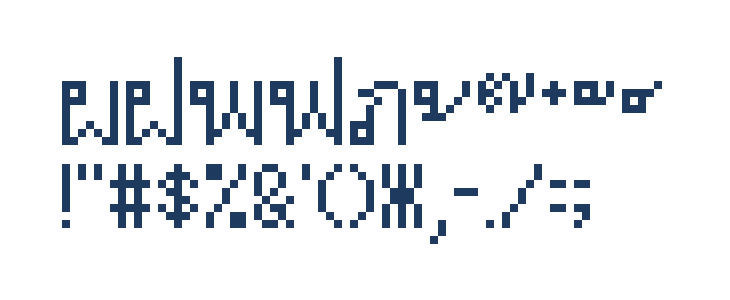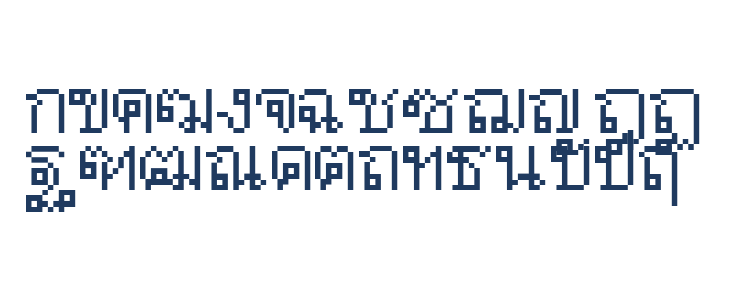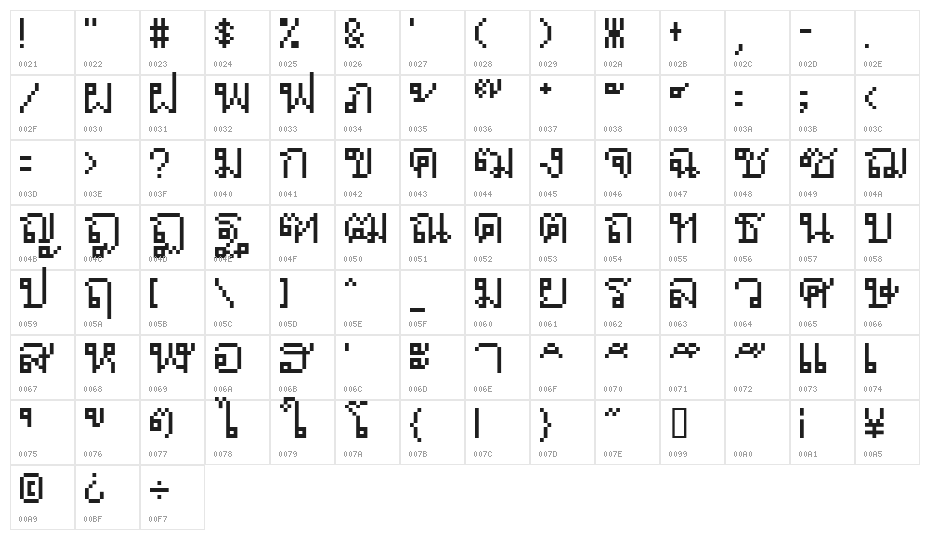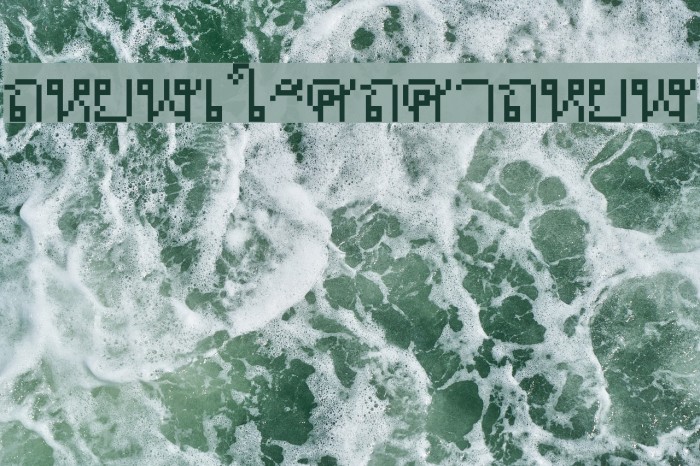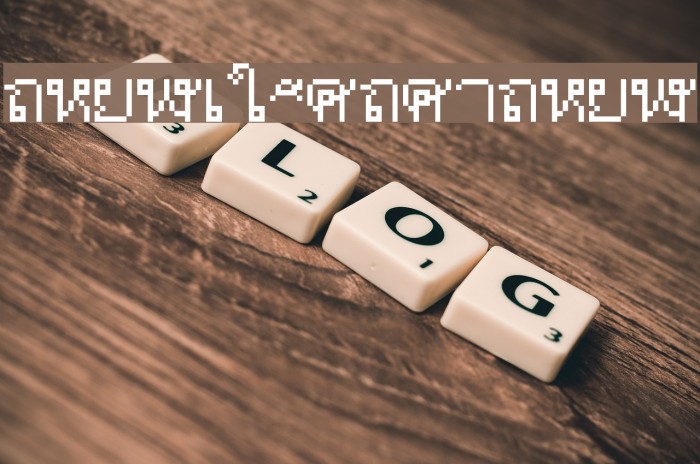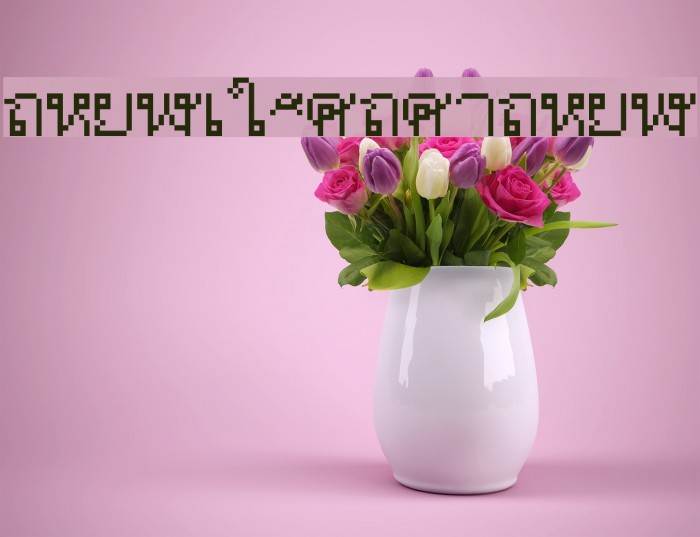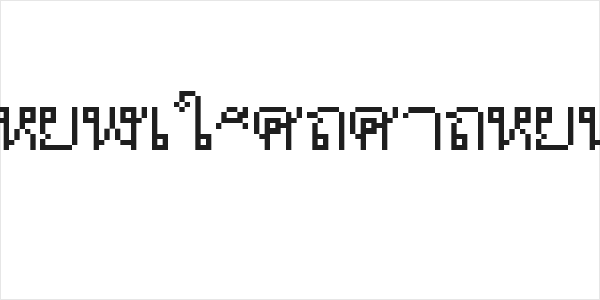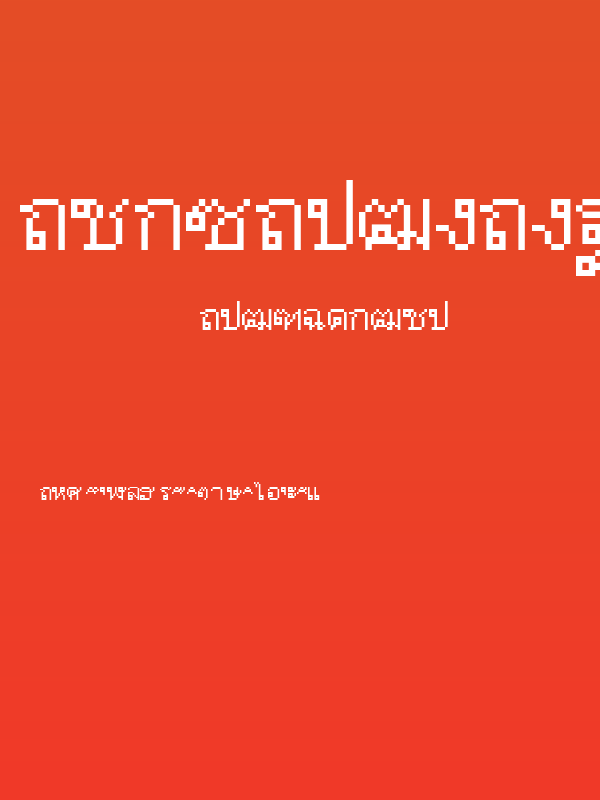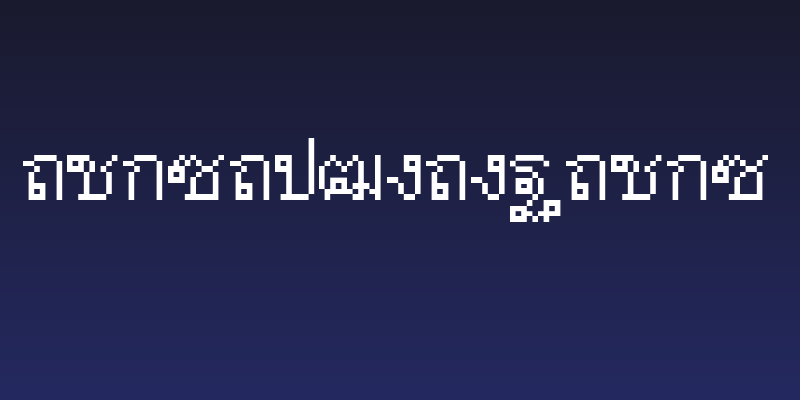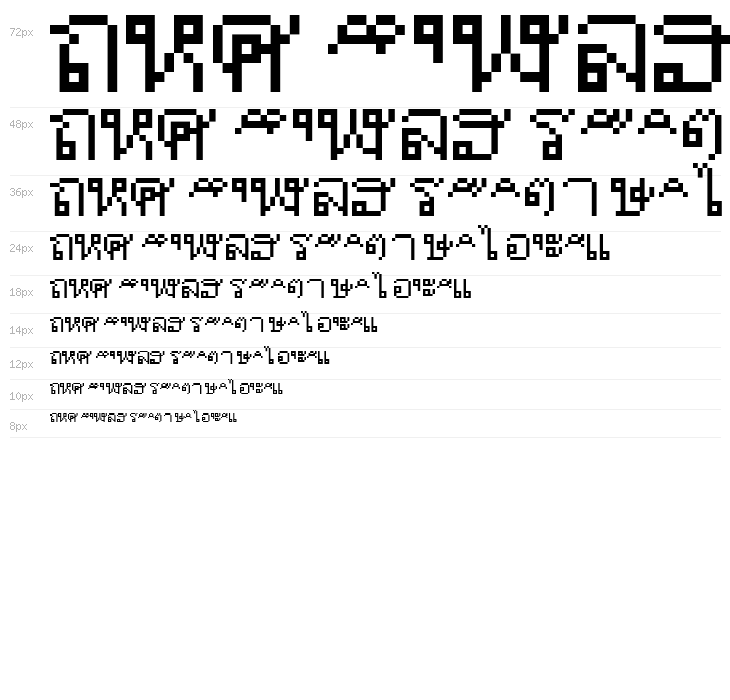
ThaitypeTenThai Font
ThaitypeTenThai Description
This font features a pixelated, blocky design reminiscent of early digital displays or retro video games. Each character is composed of small square blocks, giving it a distinctly digital and geometric appearance. The uniformity in the height and width of the characters contributes to a monospaced feel, although it is not strictly monospaced. The uppercase and lowercase letters maintain a consistent style, with the lowercase being slightly smaller in size. Numbers and special characters follow the same pixelated design, ensuring a cohesive look across all glyphs. The font's simplicity and clarity make it highly legible, even at smaller sizes, while its unique style adds a playful, nostalgic touch.
| Overall Style | Retro, Digital |
| Use Case | Headlines, Logos, Digital Art |
| Proposed Projects | Ideal for retro-themed designs, video game graphics, digital art projects, and any creative work that requires a nostalgic or playful touch. |